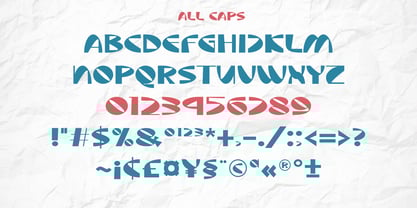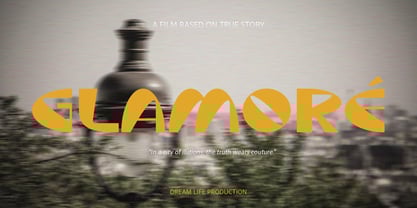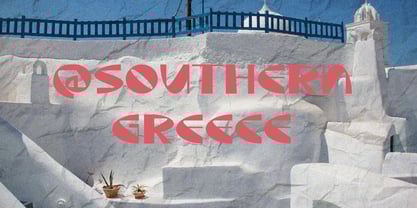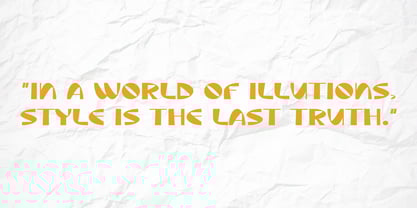
Lushloop
by ErlosDesign
The Lushloop Font Family was designed by Erlangga Suherman and published by ErlosDesign. Lushloop contains 1 styles. More about this family
Lushloop is a bold and curvy display typeface with a flair for style. Perfect for logos, headlines, movie tittles, and statement designs, it brings a playful elegance to any project with its flowing curves and modern charm.
Designers: Erlangga Suherman
Foundry: ErlosDesign